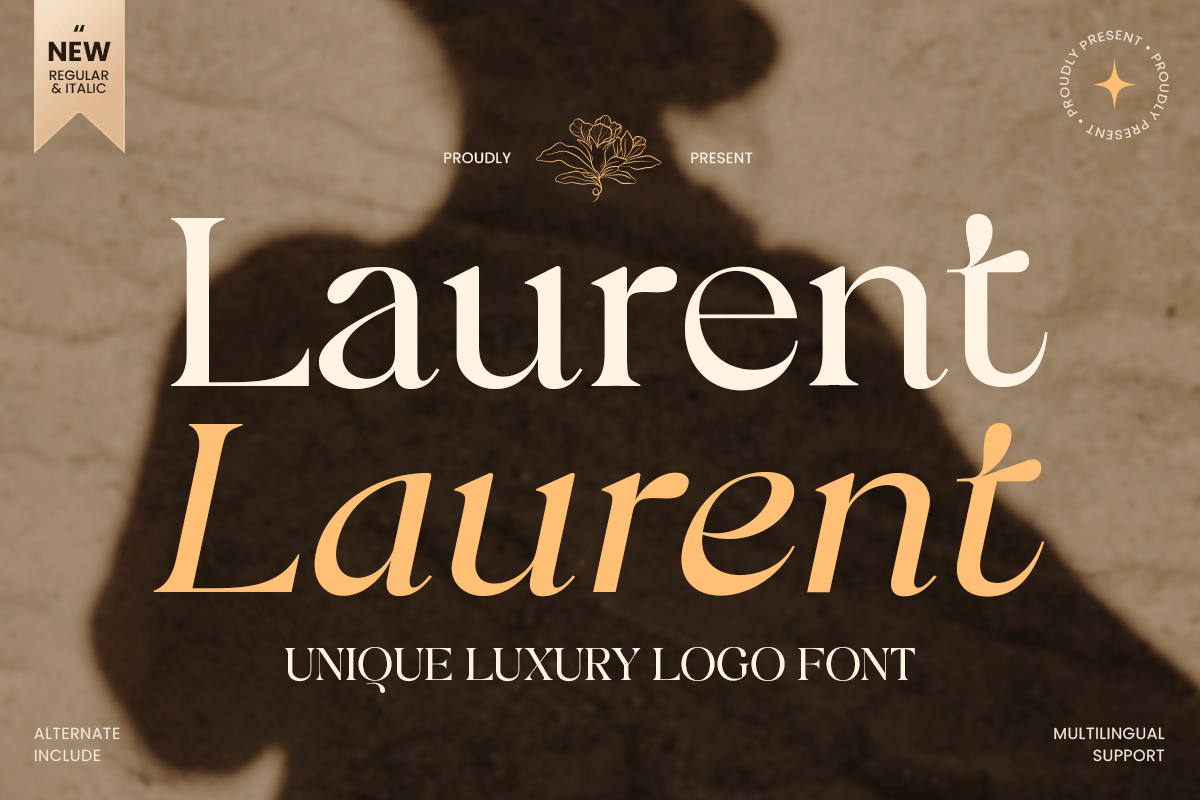
Laurent
-Modern Elegant Serif Font
Laurent - Modern Elegant Serif Font
Laurent is a unique luxury logo font crafted to bring elegance, exclusivity, and refined visual character to premium design projects. With stylish proportions, graceful details, and a polished display presence, this typeface is ideal for luxury branding, fashion logos, editorial titles, boutique packaging, and sophisticated visual identities.
Designed for creators who want typography with both distinction and timeless appeal, Laurent blends modern luxury with artistic personality. Its unique letterforms help every logo, headline, and brand mark feel memorable, high-end, and visually confident.
Whether used for fashion labels, beauty brands, lifestyle packaging, wedding stationery, or elegant digital campaigns, Laurent delivers a premium aesthetic that works beautifully across both print and digital media.
Laurent – Unique Luxury Logo Font Features
• Unique luxury display style for premium branding
• Prepared with regular and italic version inside
• Perfect for logos, packaging, editorials, and fashion identity
• Elegant letterforms with refined modern character
• Ideal for beauty, lifestyle, boutique, wedding, and luxury industries
• OpenType features for enhanced typographic styling
Create a refined premium identity with Laurent – the perfect luxury logo font for elegant branding, packaging, and editorial design. ✨